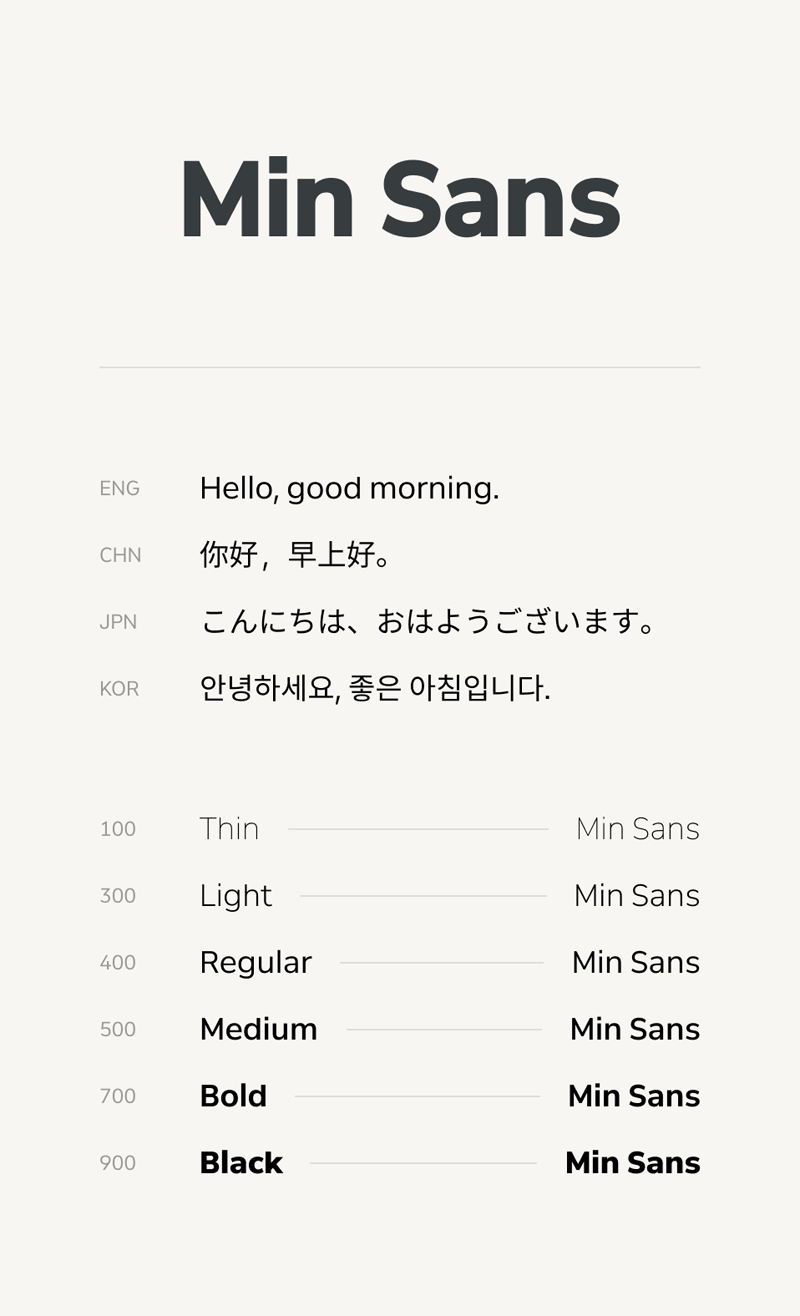
Min Sans � CJK fonts Full Version: https://jinseong-kim.notion.site/Min-Sans-CJK-fonts-e62f0d97351a444f8e628758485b62c9 --------------------------------------------- It is started as a side project that solve the inconvinient issues of Noto Sans, And it is the custom font from Noto sans and Nunito Sans by myself. The existing fonts are usally made for better readabillity, On the other hands, Min sans is especially made for the easier and faster product designing. --------------------------------------------- github: https://github.com/poposnail61/MinSans e-mail: poposnail61@gmail.com |